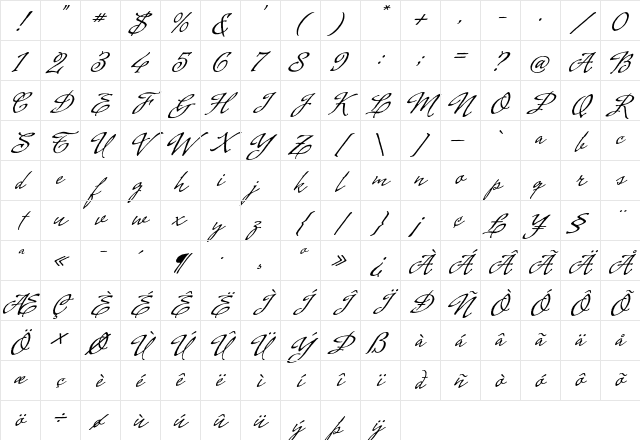
Cenizas Regular Free Font
Cenizas Regular
Foundry: Alejandro Paul & Angel Koziupa
Designer: Angel Koziupa
Design Context for Cenizas
Cenizas is a composed and adaptable typeface that performs quietly and consistently across a wide range of design contexts.
Who designed the Cenizas Regular font?